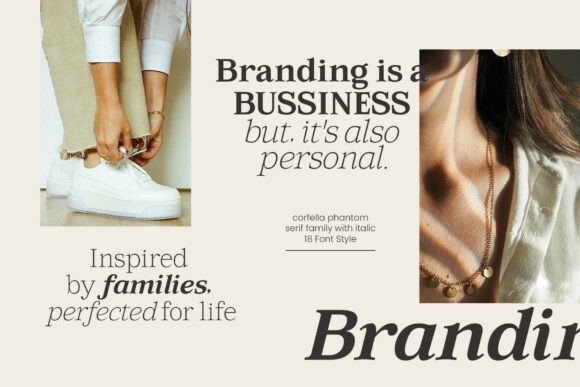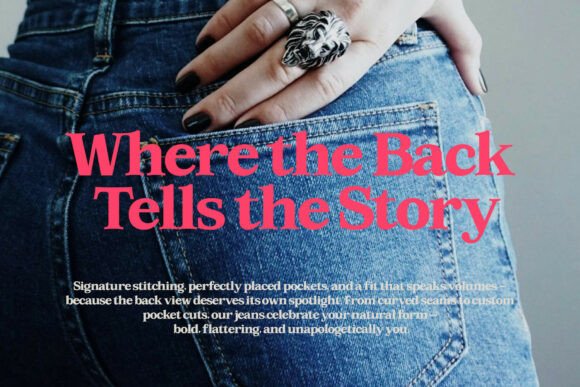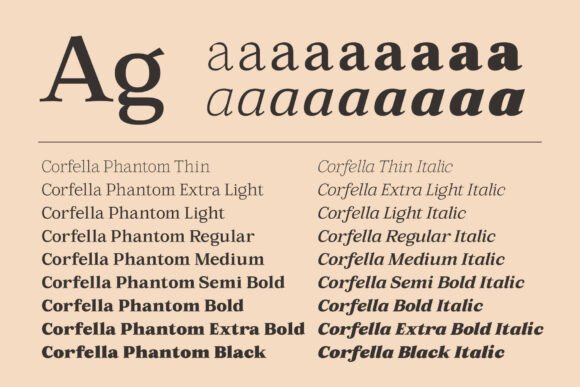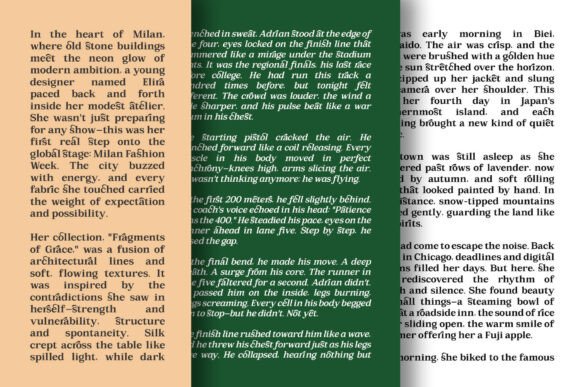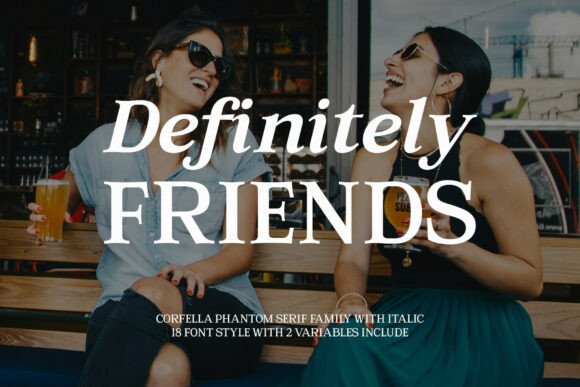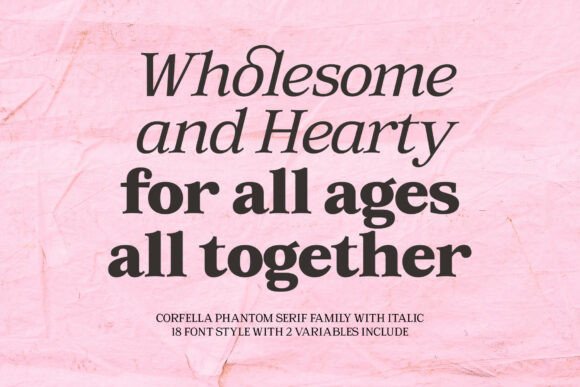
Introducing Corfella Phantom Font: Elevate Your Design with Elegance and Functionality
In the world of typography, finding the perfect balance between aesthetic appeal and practical usability can be a daunting task. However, Corfella Phantom typeface has successfully bridged this gap, offering a sophisticated serif font family that seamlessly blends elegant design with high functionality. This refined package is equipped with a complete typographic toolkit, making it an indispensable asset for designers and crafters alike.
A Versatile Typographic Toolkit
Corfella Phantom boasts an impressive 18 versatile weights, allowing it to adapt effortlessly from bold, attention-grabbing headlines to delicate, understated body text. This extensive range of weights ensures that the font can be used across various design applications, from editorial and branding to packaging and digital media. Whether you need to make a statement or convey a subtle message, Corfella Phantom has got you covered.
Inspired by Nature’s Forms
The design of Corfella Phantom draws inspiration from the forms of nature, imbuing each letterform with a soft, organic rhythm. This natural influence lends a calm and graceful voice to your design, making it perfect for projects that require a touch of sophistication and elegance. The font’s organic feel also helps to create a sense of warmth and approachability, making it ideal for brands and designs that aim to connect with their audience on a personal level.
Perfect Balance of Artistic Beauty and Practical Usability
What sets Corfella Phantom apart from other font families is its perfect balance between artistic beauty and practical usability. The font’s PUA (Private Use Area) encoding ensures that all stylistic alternates and extras are fully accessible through standard tools like Font Book (Mac) and Character Map (Windows), eliminating the need for special software. This feature makes it easy to incorporate the font into your workflow, saving you time and increasing productivity.
OpenType-Rich Character Set
Corfella Phantom’s OpenType-rich character set is a treasure trove of design possibilities. The font includes enhanced symbols, punctuation variations, and multilingual support, making it a reliable workhorse for both branding and editorial applications. With Corfella Phantom, you can create complex designs and typographic arrangements with ease, knowing that the font has the capabilities to support your creative vision.
A Classy Communicator and Modern Design Tool
Corfella Phantom is more than just a font – it’s a classy communicator and a modern design tool. Its sophisticated design and versatile nature make it an excellent choice for designers and crafters who want to elevate their work to the next level. Whether you’re working on a branding project, editorial design, or digital media, Corfella Phantom is the perfect companion to help you achieve your creative goals.
- 18 versatile weights: Adapt seamlessly from bold headlines to delicate body text
- PUA-encoded: Easy access to stylistic alternates and extras through standard tools
- OpenType-rich character set: Enhanced symbols, punctuation variations, and multilingual support
- Inspired by nature’s forms: Soft, organic rhythm for a calm and graceful voice
- Perfect balance of artistic beauty and practical usability: A reliable workhorse for branding and editorial applications
In conclusion, Corfella Phantom font is a game-changer for designers and crafters who want to add a touch of elegance and sophistication to their work. With its versatile typographic toolkit, perfect balance of artistic beauty and practical usability, and OpenType-rich character set, Corfella Phantom is the ultimate design companion. Whether you’re working on a branding project, editorial design, or digital media, Corfella Phantom is ready to help you elevate your design to new heights.